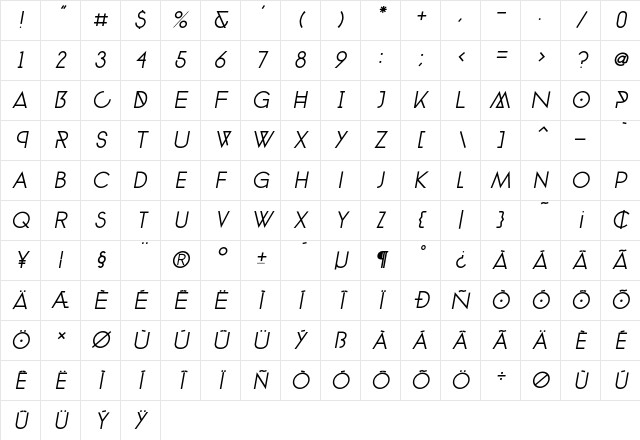
phantom light italic
Style: light italic
Foundry: Frank Hemmekam
Designer: Frank Hemmekam
Year: 2013
phantom Family
phantom light italic
Complete phantom light italic glyph index. Displaying only characters natively supported by phantom light italic font.
Design Context for phantom
phantom is a composed and adaptable typeface that performs quietly and consistently across a wide range of design contexts. The slanted form adds forward momentum and visual energy. Its slender proportions lend an understated elegance to any composition.